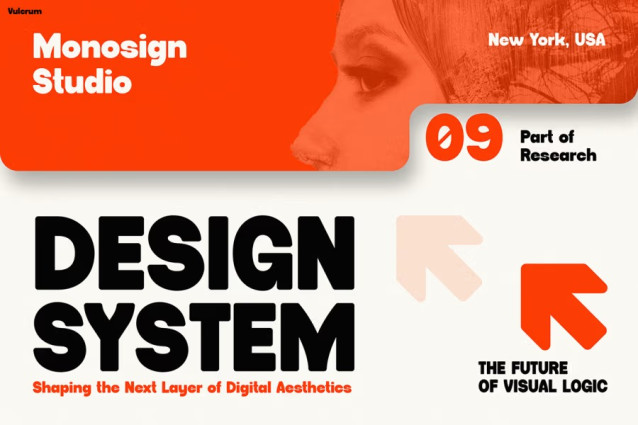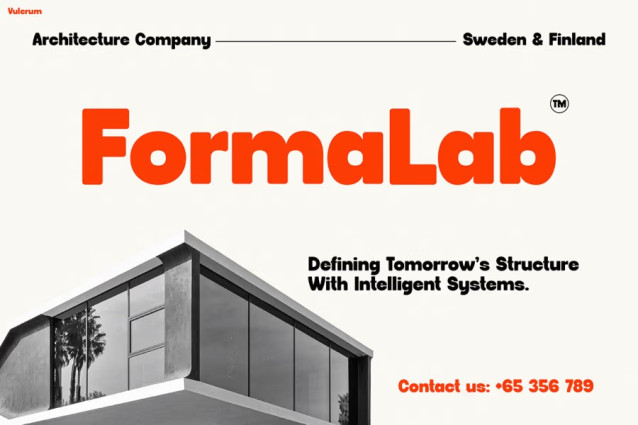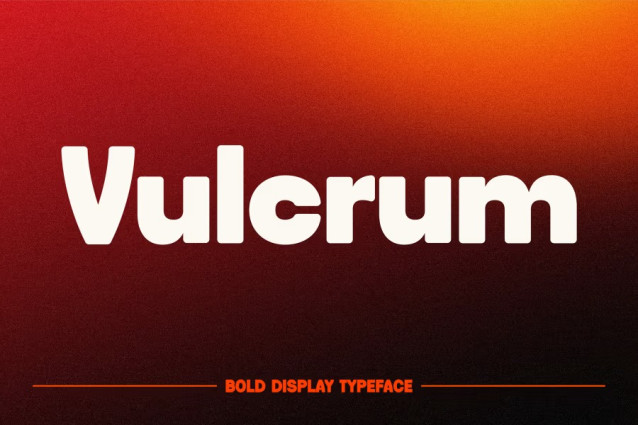
Vulcrum Font
Vulcrum Font is a striking display typeface that instantly grabs attention with its bold geometric precision. From the first glance, its confident curves and sharp edges define power and balance. Moreover, every character carries a futuristic rhythm that feels dynamic yet timeless. As a result, Vulcrum turns ordinary text into a strong, forward-thinking design statement.
In addition, this font merges industrial modernism with minimalist clarity. Because of its clean form, it adapts beautifully across digital and print media. Whether you’re creating sleek architecture branding or designing bold advertising campaigns, Vulcrum adds modern logic and professional edge. Ultimately, it transforms words into visuals that feel bold, precise, and iconic.
Besides, Vulcrum’s smart proportions ensure both impact and readability. Even at large scales, its details stay crisp and powerful. Therefore, it becomes a perfect companion for designers who value structure, elegance, and balance.
Perfect For Designers and Visionary Brands
Vulcrum is ideal for designers, creative professionals, and visionary brands seeking a futuristic visual identity. Specifically, it fits tech startups, product designers, architects, and lifestyle labels that embrace innovation. Additionally, it works perfectly for agencies needing a dependable and bold typeface for versatile branding projects.
Furthermore, Vulcrum’s geometric base enhances visual flow, helping each layout feel clean and organized. For example, it performs brilliantly in posters, hero banners, and web titles. Even more, social media creators can use it to boost engagement with impactful visuals. Because of its timeless structure, it adapts easily to any concept or mood.
Consequently, Vulcrum gives your projects a design voice that’s confident, strong, and futuristic. With every use, it reflects creativity, purpose, and professionalism.
Make Your Message Bold and Futuristic
In conclusion, your words deserve a font that stands out. Futuristic Font Vulcrum empowers every message with clarity, precision, and bold style. So, choose Vulcrum to make your designs modern, memorable, and irresistibly powerful. Go beyond the ordinary — go bold with Vulcrum.